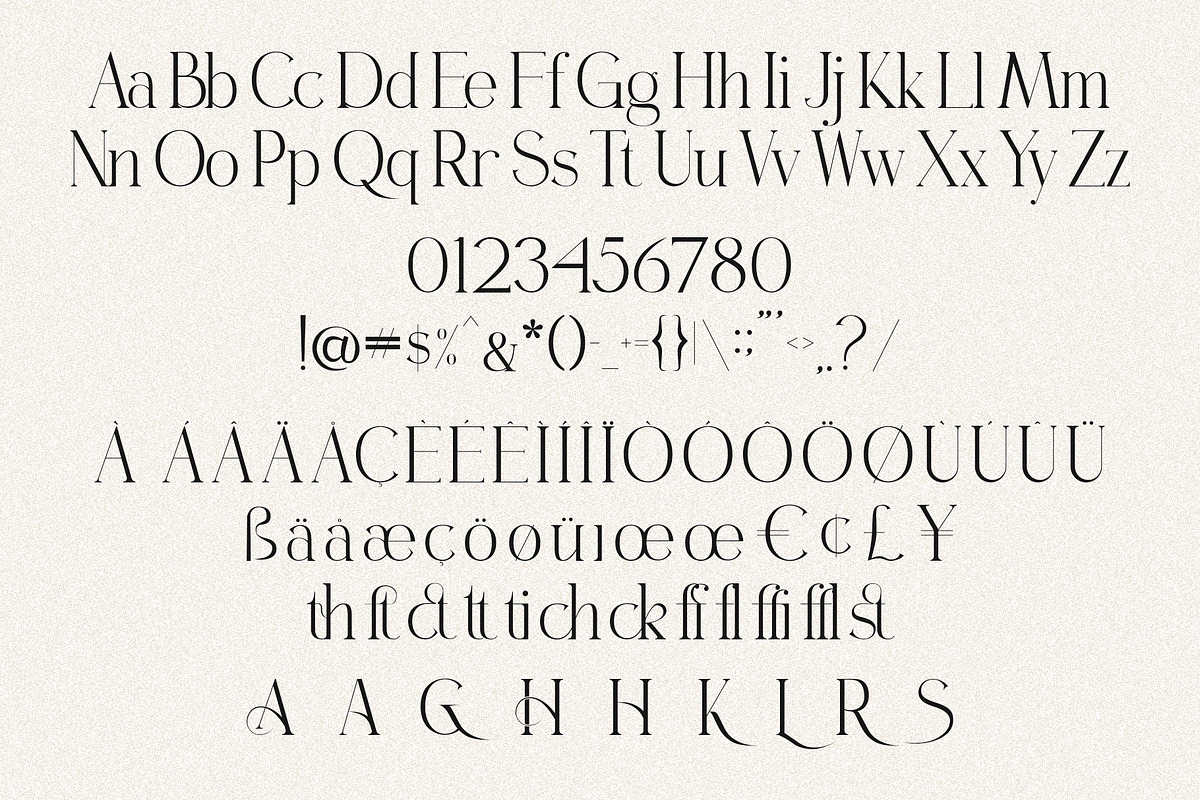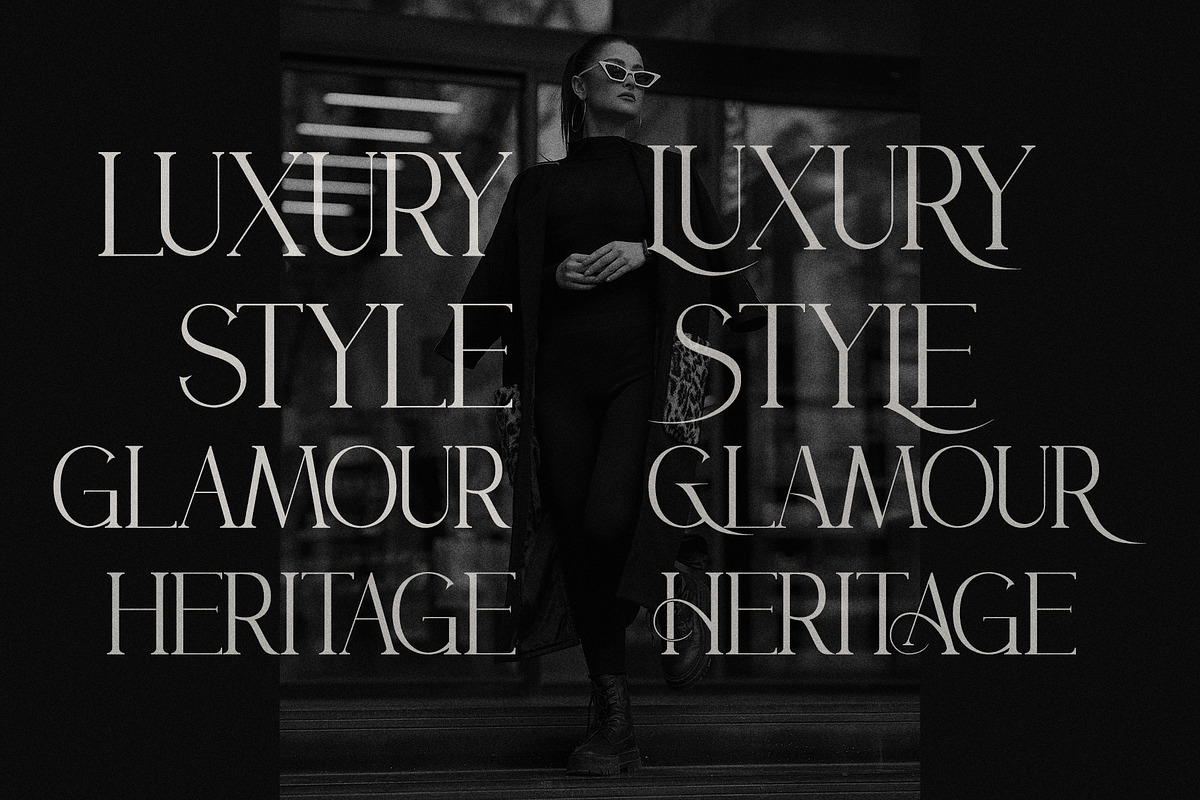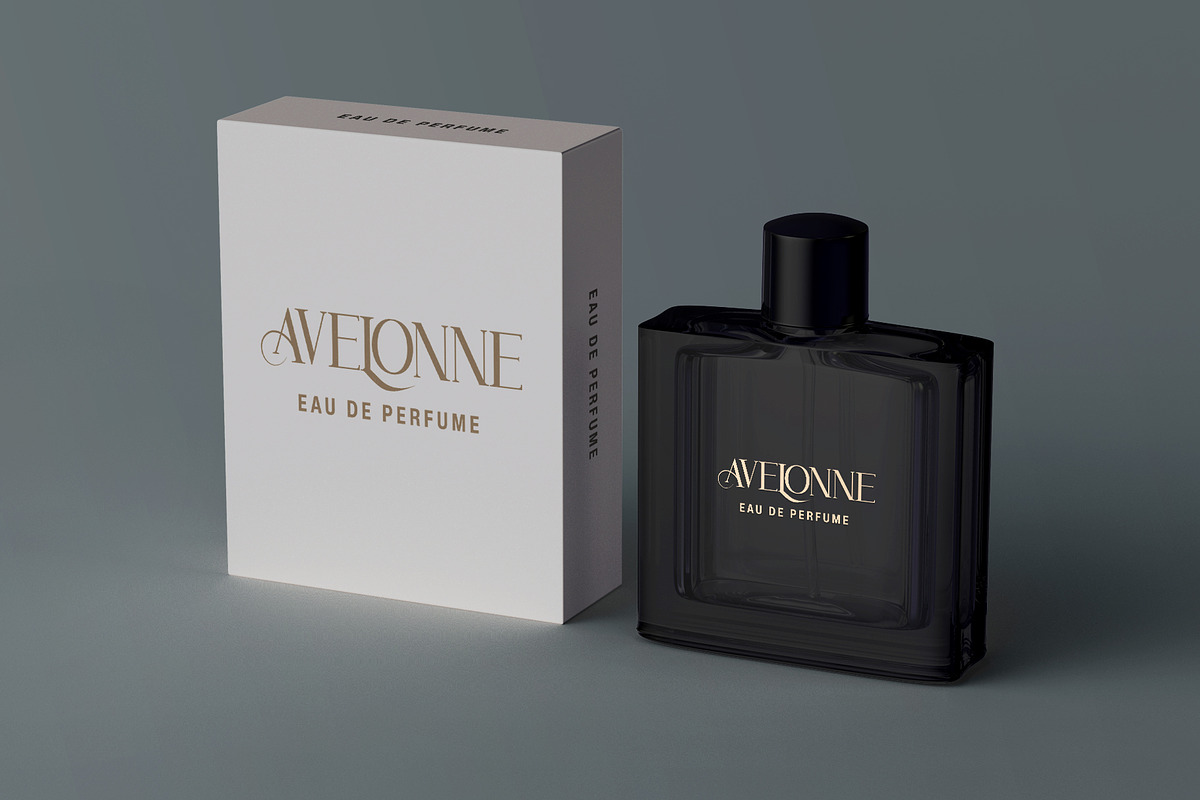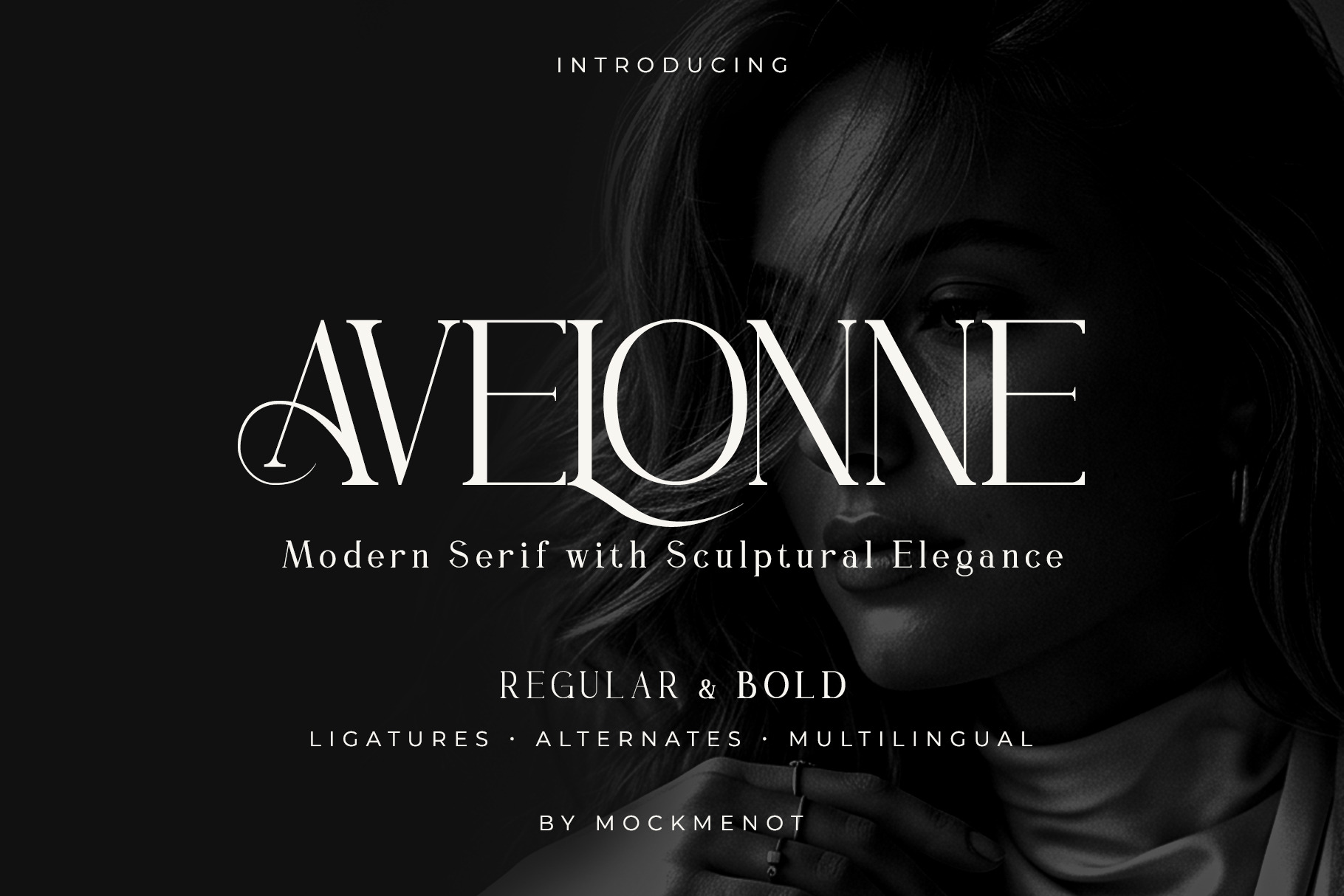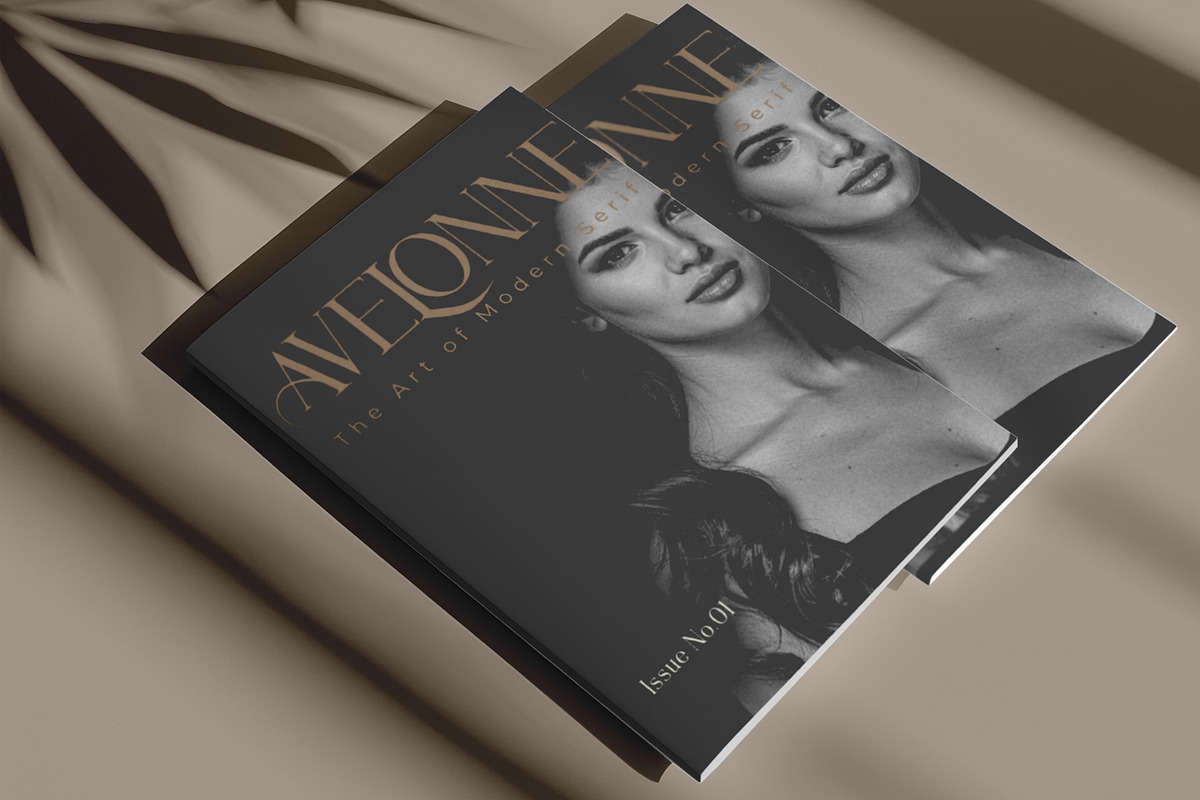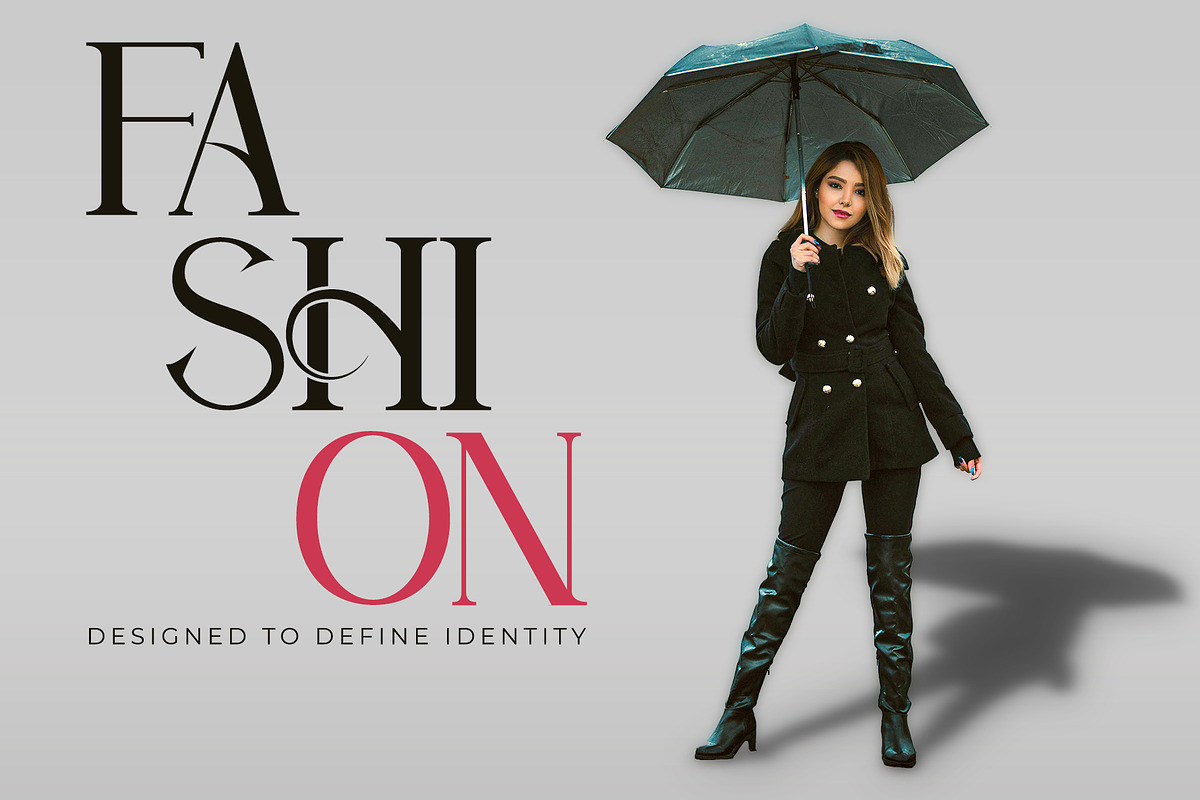
Avelonne - Elegance Serif Font
AVELONNE is a modern editorial serif typeface crafted with refined contrast, sculptural curves, and elegant details. Designed for luxury branding, fashion editorials, magazine layouts, wedding designs, and sophisticated visual identities. Featuring stylish ligatures, alternates, and multilingual support to bring timeless elegance into every project.